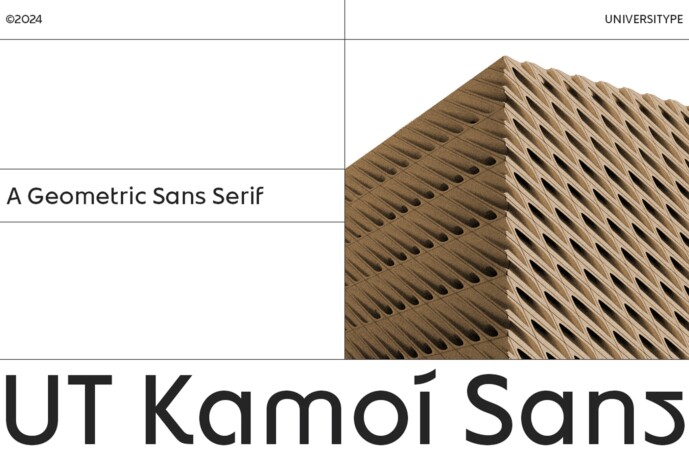
Kamoi Sans Font
Kamoi Sans is a geometric sans serif font that combines the precision of modern design with the rich cultural heritage of Japanese aesthetics. Drawing inspiration from the smooth curves of Hiragana and Katakana scripts, as well as the meticulous symmetry found in architectural floor plans, this typeface strikes a harmonious balance between artistry and functionality.
Inspiration Behind the Design Kamoi Sans :
Kamoi Sans draws from two distinct yet complementary influences: the graceful curves of Japanese Hiragana and Katakana scripts and the structured precision of architectural floor plans.
Hiragana and Katakana, essential components of the Japanese writing system, are known for their simplicity and elegance.
Each stroke flows with a natural rhythm, offering clarity without rigidity. In contrast, architectural floor plans embody order and structure, where every line is intentional and every angle is carefully considered.
This blend of inspirations results in a typeface that feels both organic and mechanical, soft yet robust. It honors tradition while embracing the modern era.